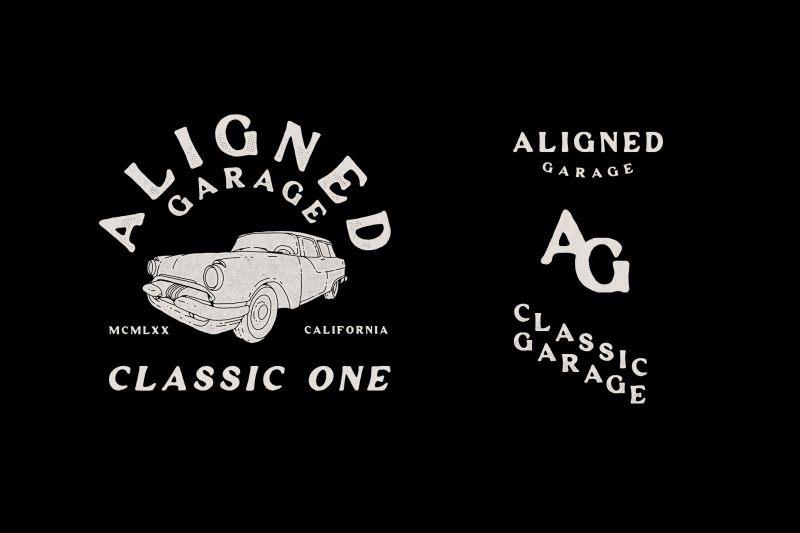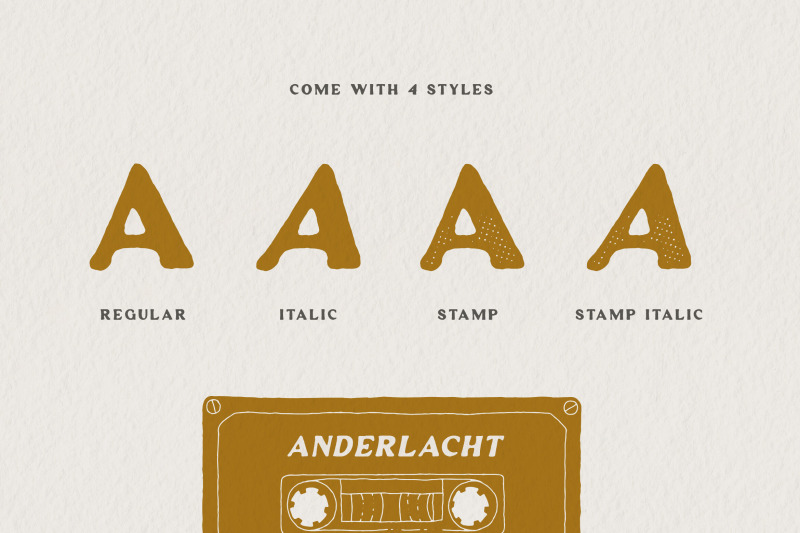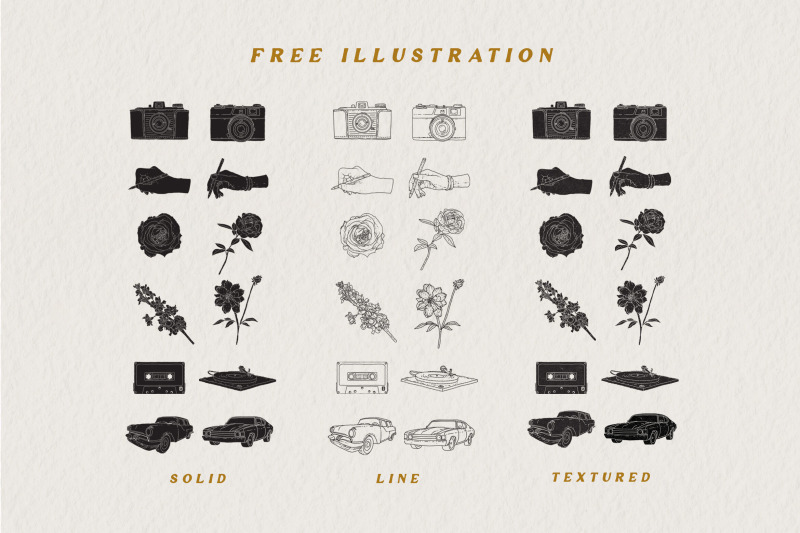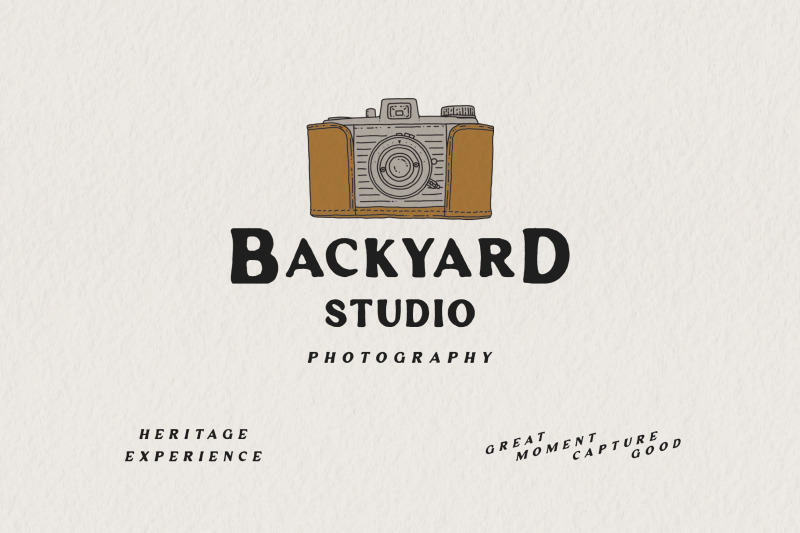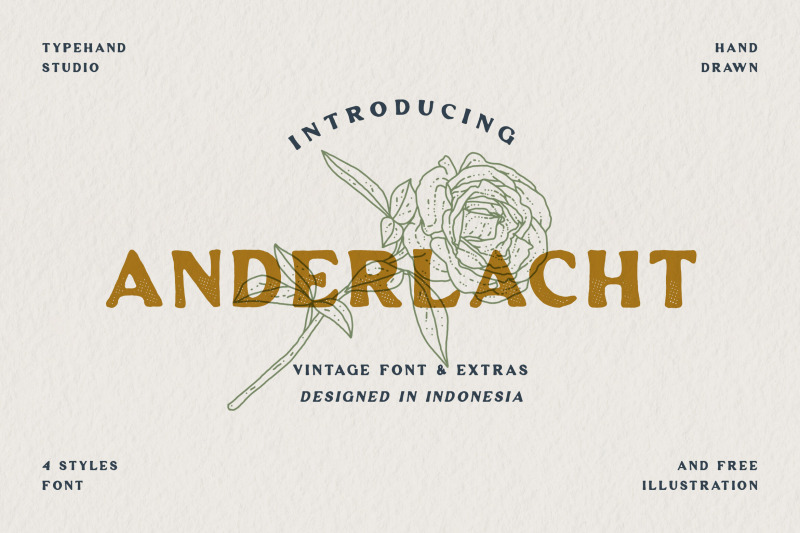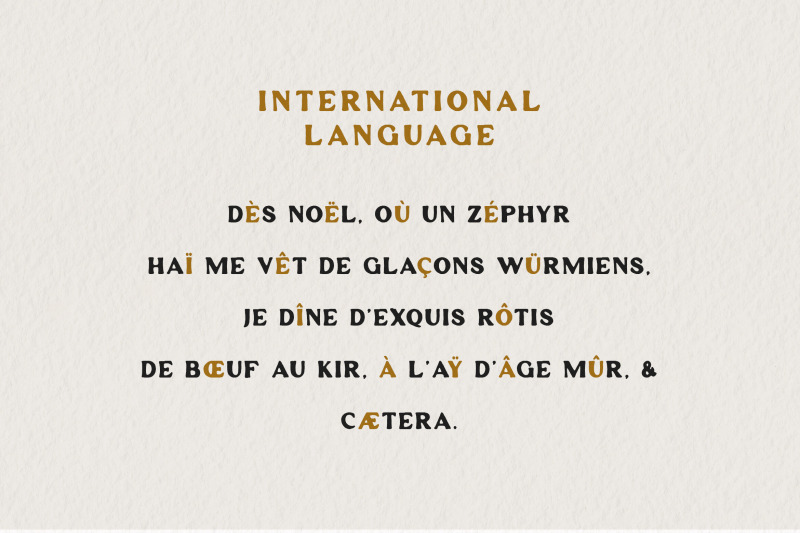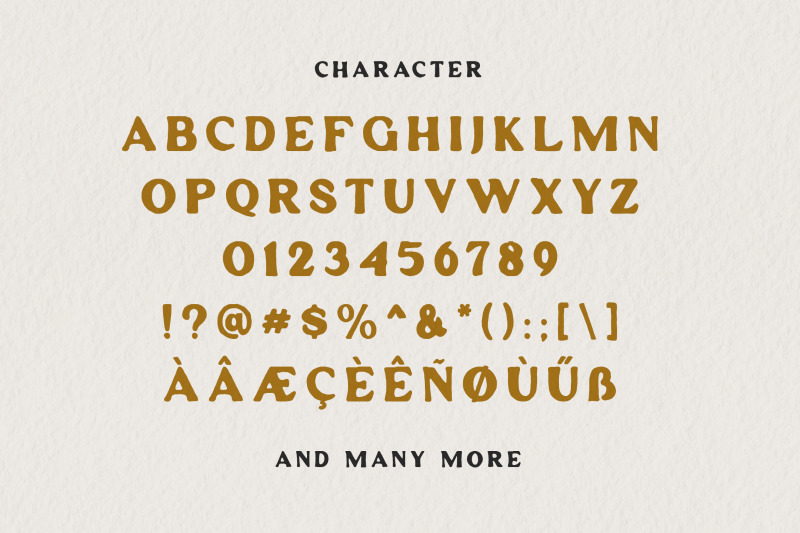
Freebie Wednesday: Anderlacht – Vintage Display Font!
FREE Anderlacht – Vintage Display Font!
Anderlacht is a vintage serif font with a stamp texture that is perfect for quotes, logos, designs, digital art and more. Also accompanied by several illustrations that make it possible to make designs very easily. Font comes in OTF format.